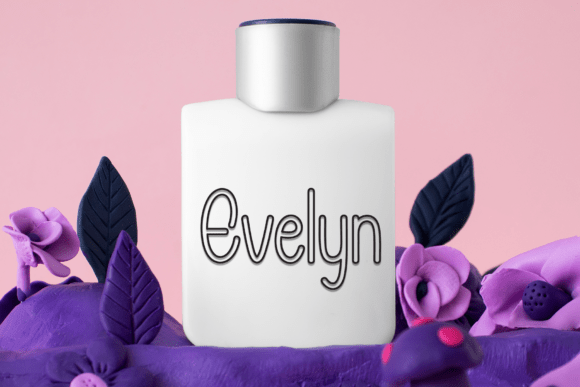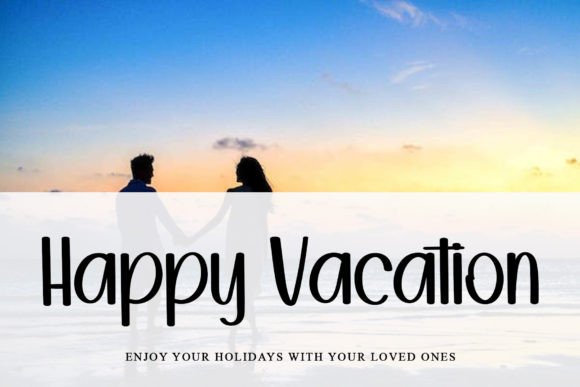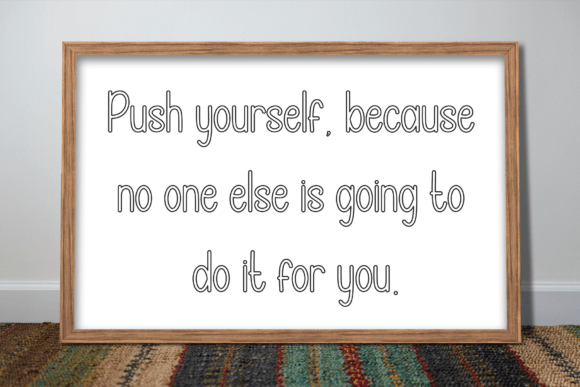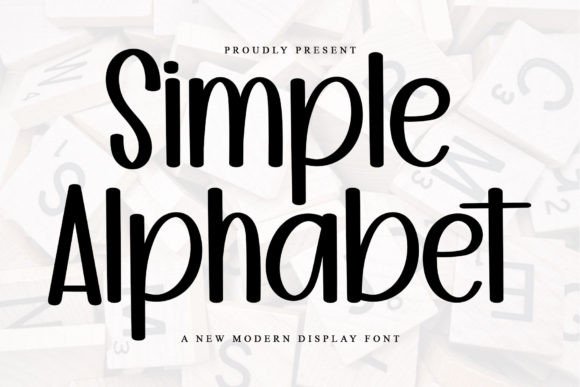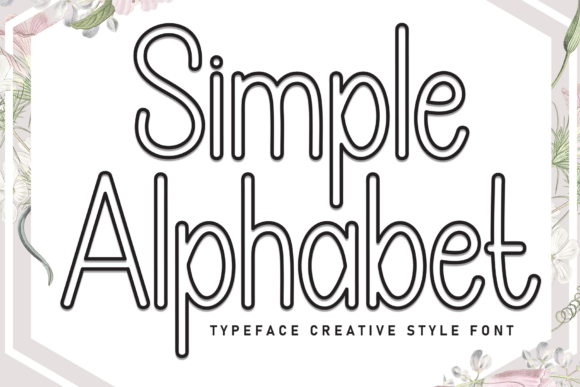
Simple Alphabet Font
About the Simple Alphabet Font
Elevate your designs with Simple Alphabet Font, a font that combines sophistication with readability. Simple Alphabet is a festive and happy typeface that captures the spirit of the holiday season. With its decorative elements and unique flair, it adds a touch of charm to your designs. Perfect for greeting cards, gift labels, and holiday-themed projects, this font brings a cheerful and nostalgic atmosphere to your words.